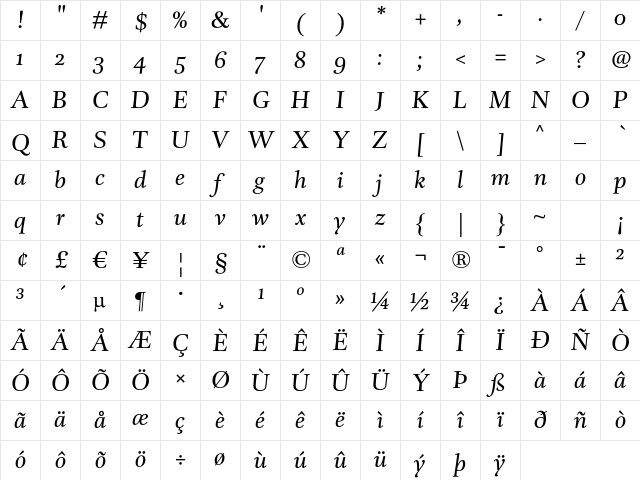
Complete DTLUnicoST Italic glyph index. Displaying only characters natively supported by DTLUnicoST Italic font.
DTLUnicoST is a composed and adaptable typeface that performs quietly and consistently across a wide range of design contexts. The slanted form adds forward momentum and visual energy.